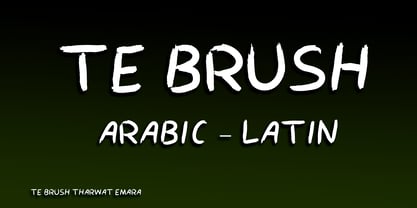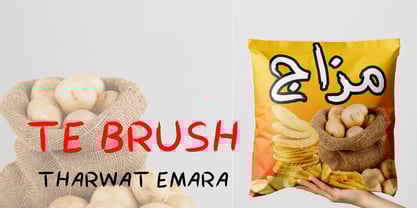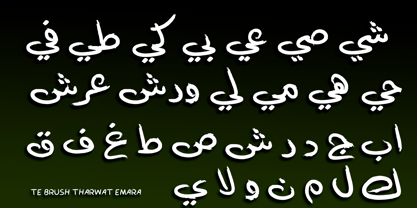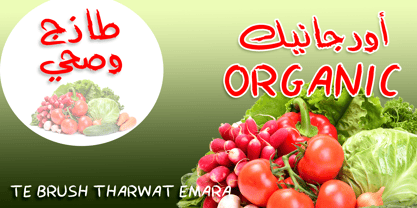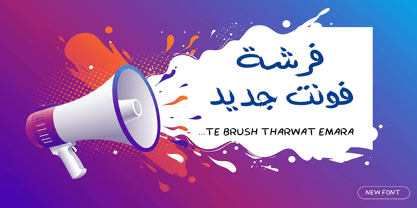
TE Brush1
by Tharwat Emara
The TE Brush1 Font Family was designed by Tharwat Mohamed Emara and published by Tharwat Emara. TE Brush1 contains 1 styles. More about this family
Brush1: Where Letters Come Alive From the studio of designer Tharwat Emara, Brush1 emerges as a typeface that transforms words into a vibrant work of art. This unique font masterfully captures the spontaneous and bold spirit of an ink-loaded brushstroke, giving every character an unmatched energy and a life of its own. Designed to be a bridge between cultures, Brush1 offers seamless support for both Arabic and Latin scripts. It maintains the same artistic soul across both languages, making it the perfect tool for global projects and brand identities that require a bold, unified voice. It is the ultimate choice for unforgettable logos, captivating headlines, product packaging, artistic posters, and social media content that dares to stand out. With Brush1, you don't just type words—you paint them with passion.
Designers: Tharwat Mohamed Emara
Foundry: Tharwat Emara
About Tharwat Emara
Tharwat Emara is an esteemed Egyptian calligrapher, renowned for his exceptional work in the field of Arabic calligraphy. He is recognized for his unique style and his ability to seamlessly blend tradition with innovation, resulting in a body of work that is both timeless and contemporary.Born in Egypt, Tharwat Emara developed a passion for calligraphy at a young age. He honed his skills through years of dedicated practice and study, eventually becoming one of the most prominent calligraphers in the country. His work has been exhibited around the world, and his fonts have been used in a variety of media, including books, advertisements, and logos.What sets Tharwat Emara apart from other calligraphers is his ability to create fonts that are both beautiful and functional. He understands that calligraphy is not just an art form, but a means of communication, and his fonts reflect this understanding. They are clear, legible, and easy to read, while also retaining the aesthetic beauty that is so important to the art of calligraphy.Tharwat Emara's fonts are also notable for their versatility. He has created fonts that are suitable for a wide range of applications, from elegant wedding invitations to bold, modern advertising campaigns. Whether you're looking for a font that is classic and timeless or something that is cutting-edge and contemporary, Tharwat Emara has a font that will suit your needs. One of the things that makes Tharwat Emara's fonts so special is the attention to detail that he puts into every design. He understands that each letter is a work of art in itself, and he approaches each design with the same level of care and precision that he would if he were creating a standalone piece of calligraphy. This attention to detail ensures that each font is not only beautiful, but also functional and easy to use. In addition to his work as a calligrapher, Tharwat Emara is also an accomplished teacher. He has taught calligraphy to students around the world, and his workshops are highly sought-after by both beginners and experienced calligraphers. His approach to teaching is based on his belief that calligraphy is a discipline that requires patience, dedication, and a willingness to learn from both success and failure. He encourages his students to explore their creativity and to find their own unique style, while also providing them with the technical skills they need to create beautiful calligraphy.If you're looking for a calligrapher who combines tradition with innovation, who creates fonts that are both beautiful and functional, and who approaches his work with the utmost care and precision, then Tharwat Emara is the perfect choice. His fonts are among the most distinctive and recognizable in the world of Arabic calligraphy, and they are sure to add a touch of elegance and sophistication to any project.